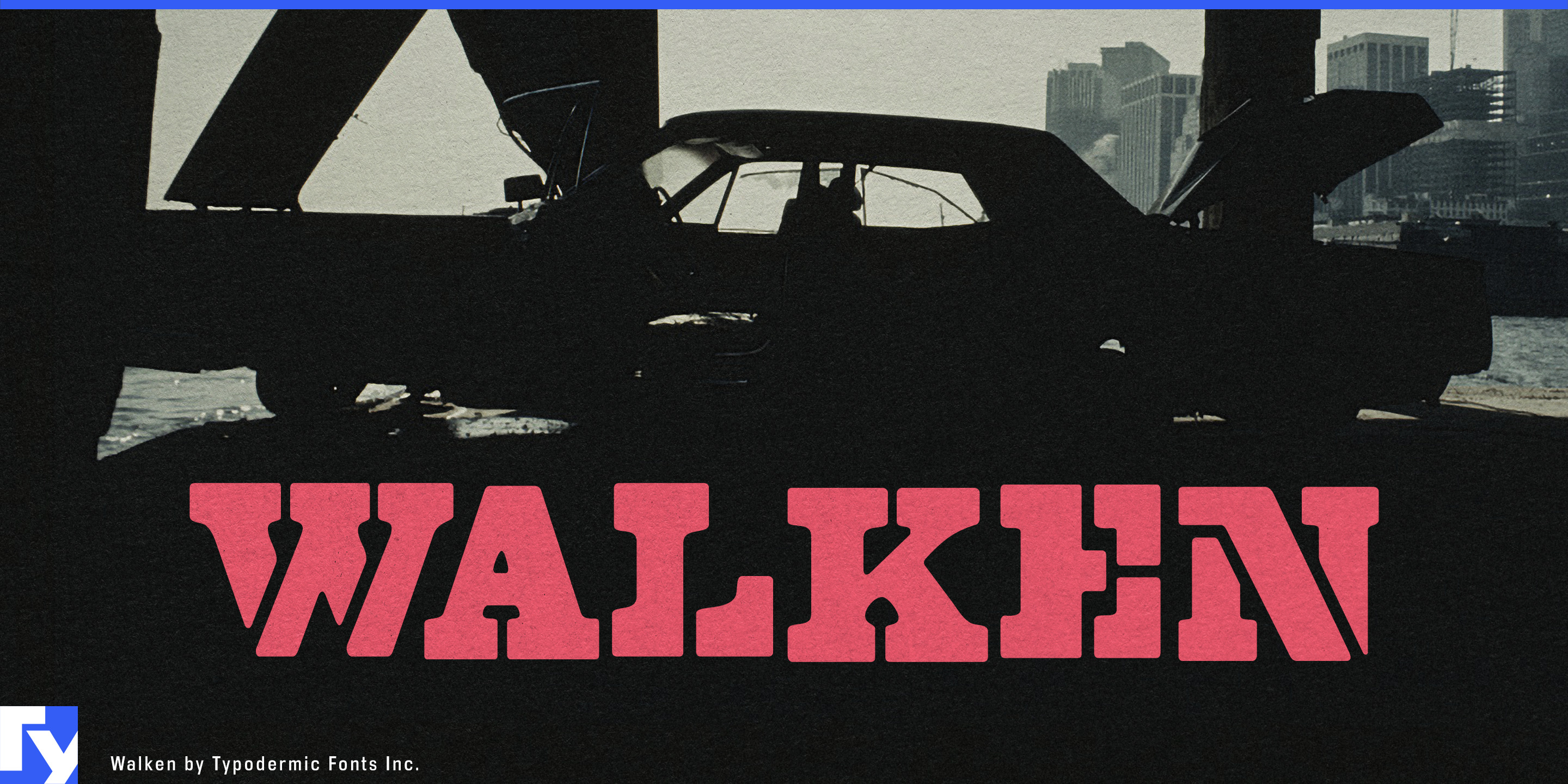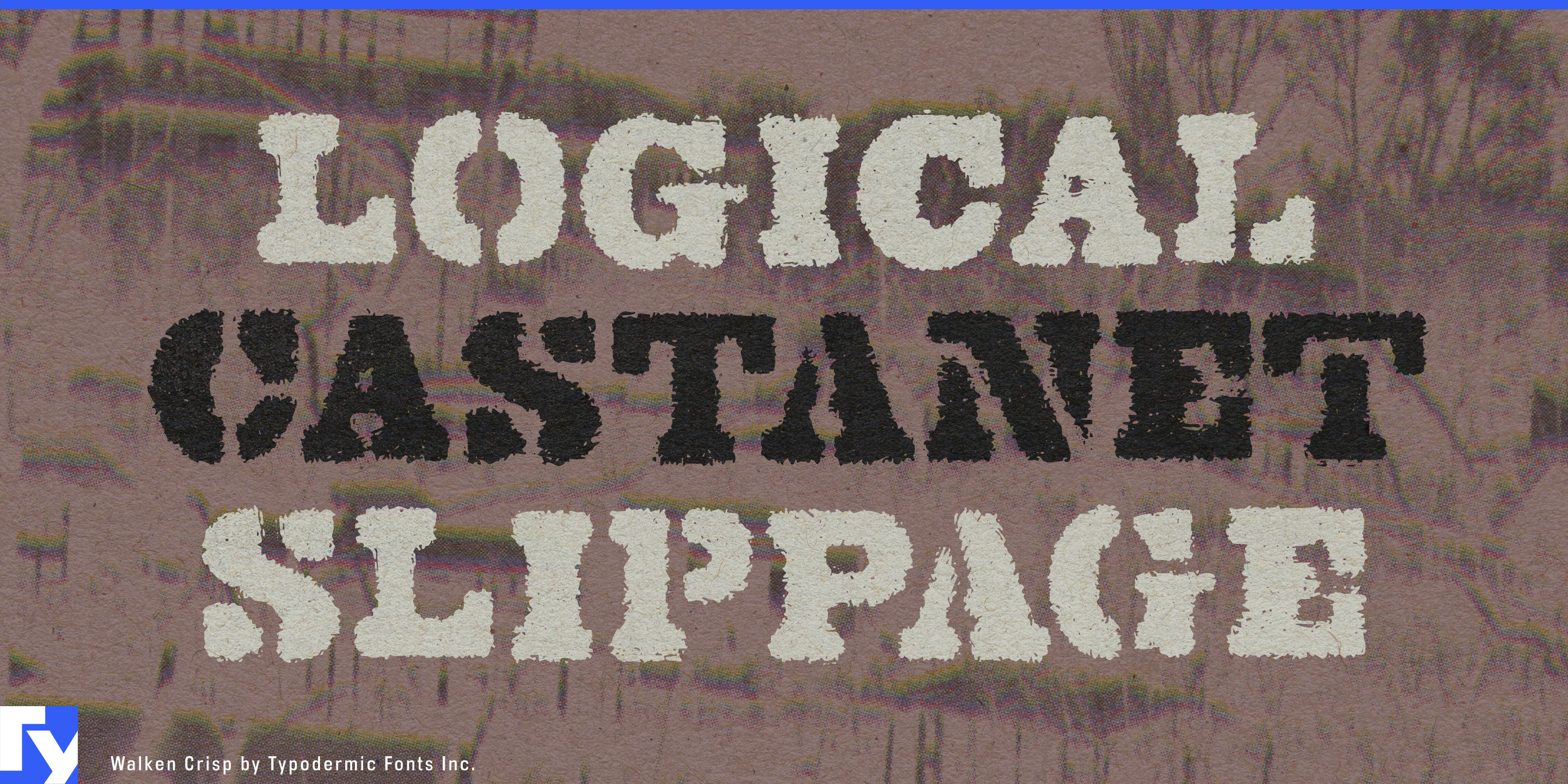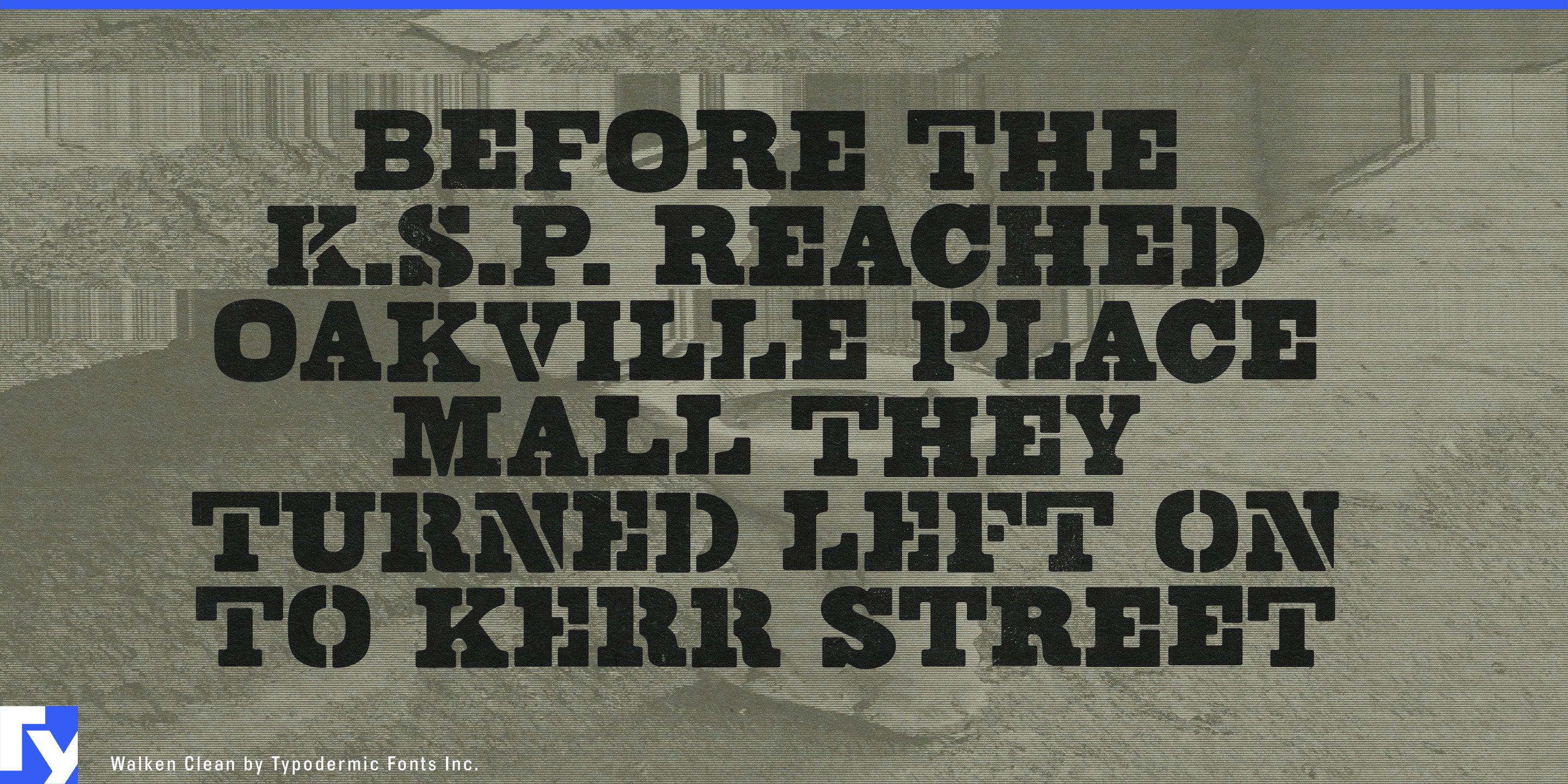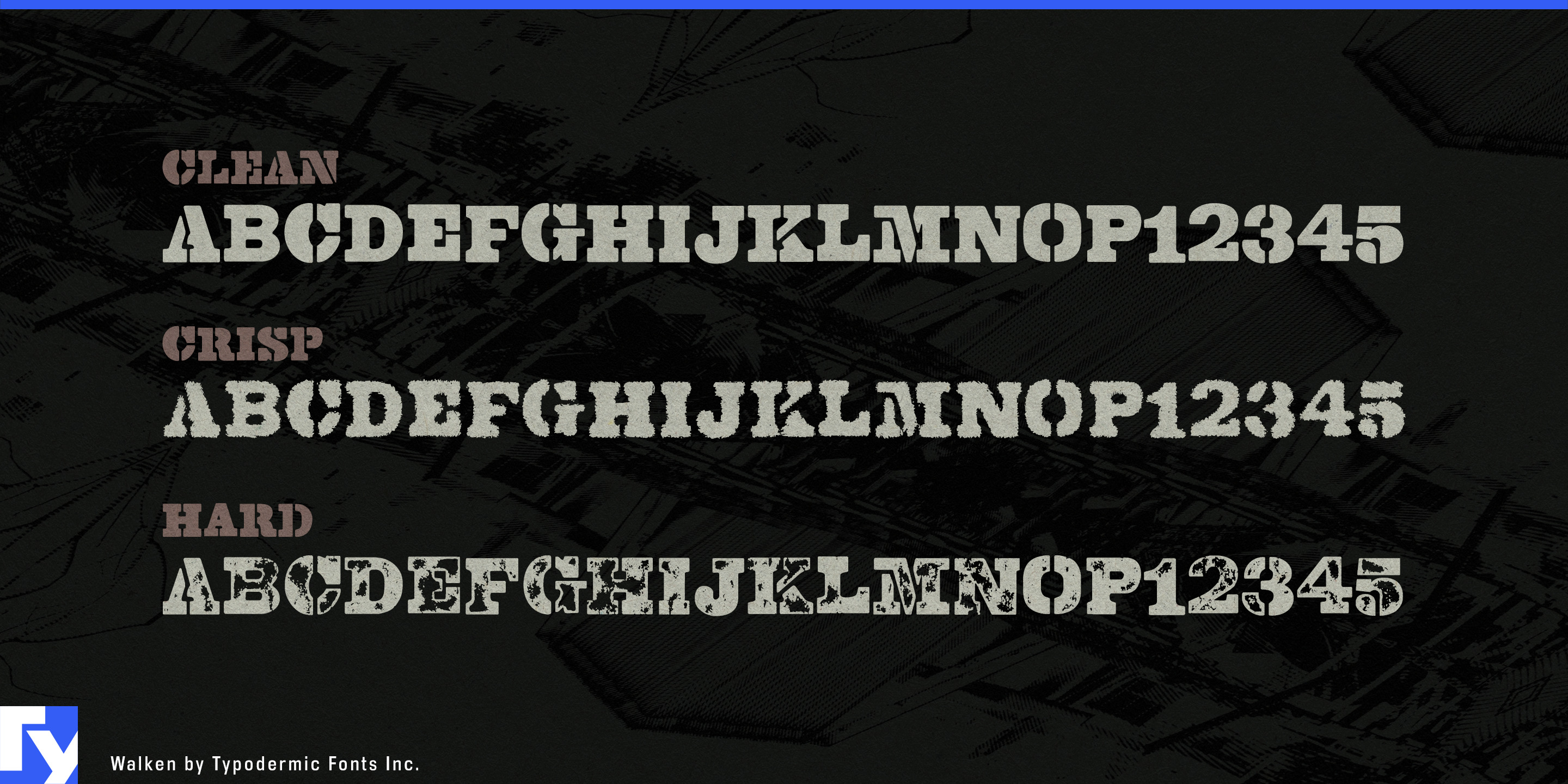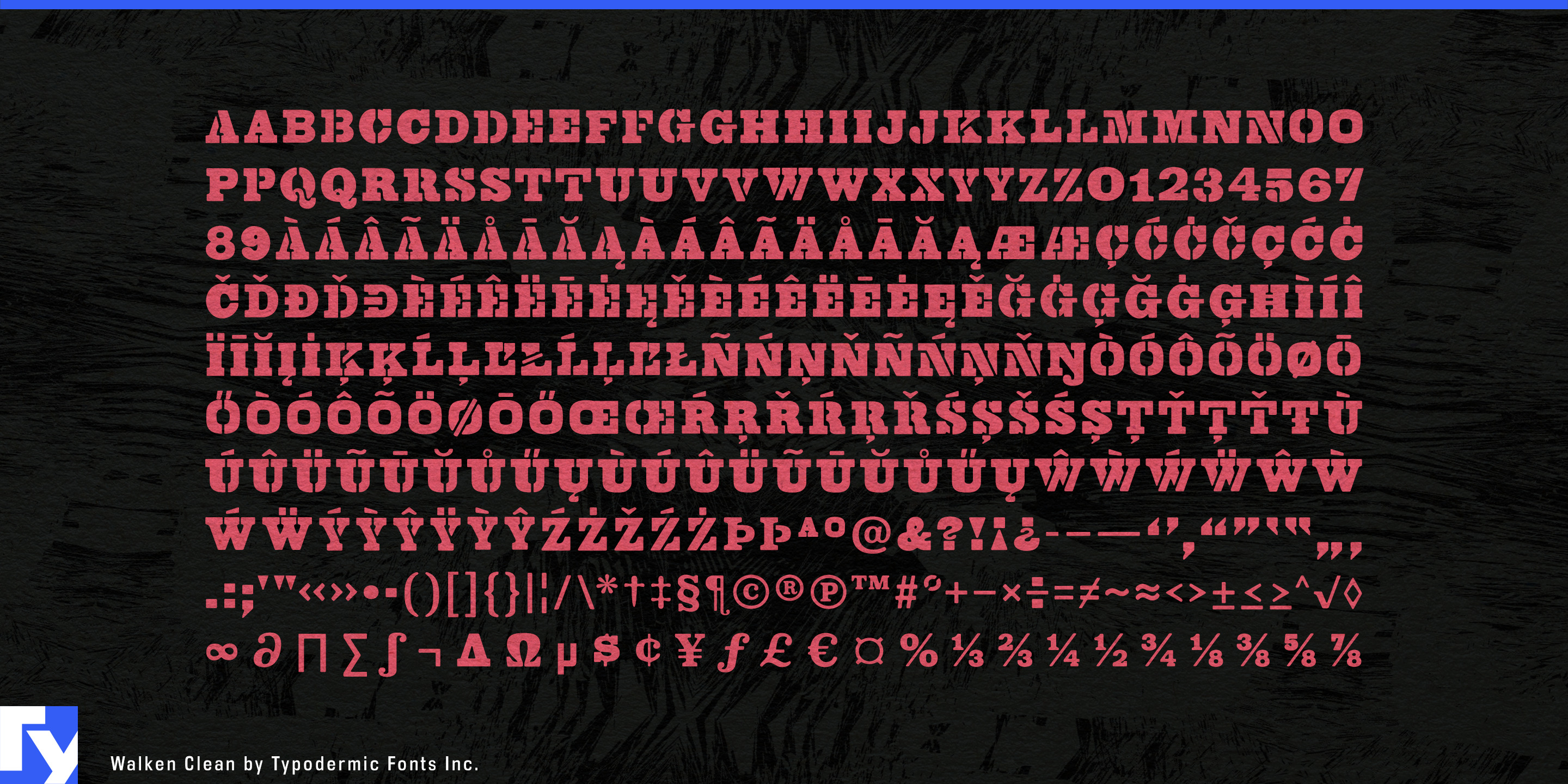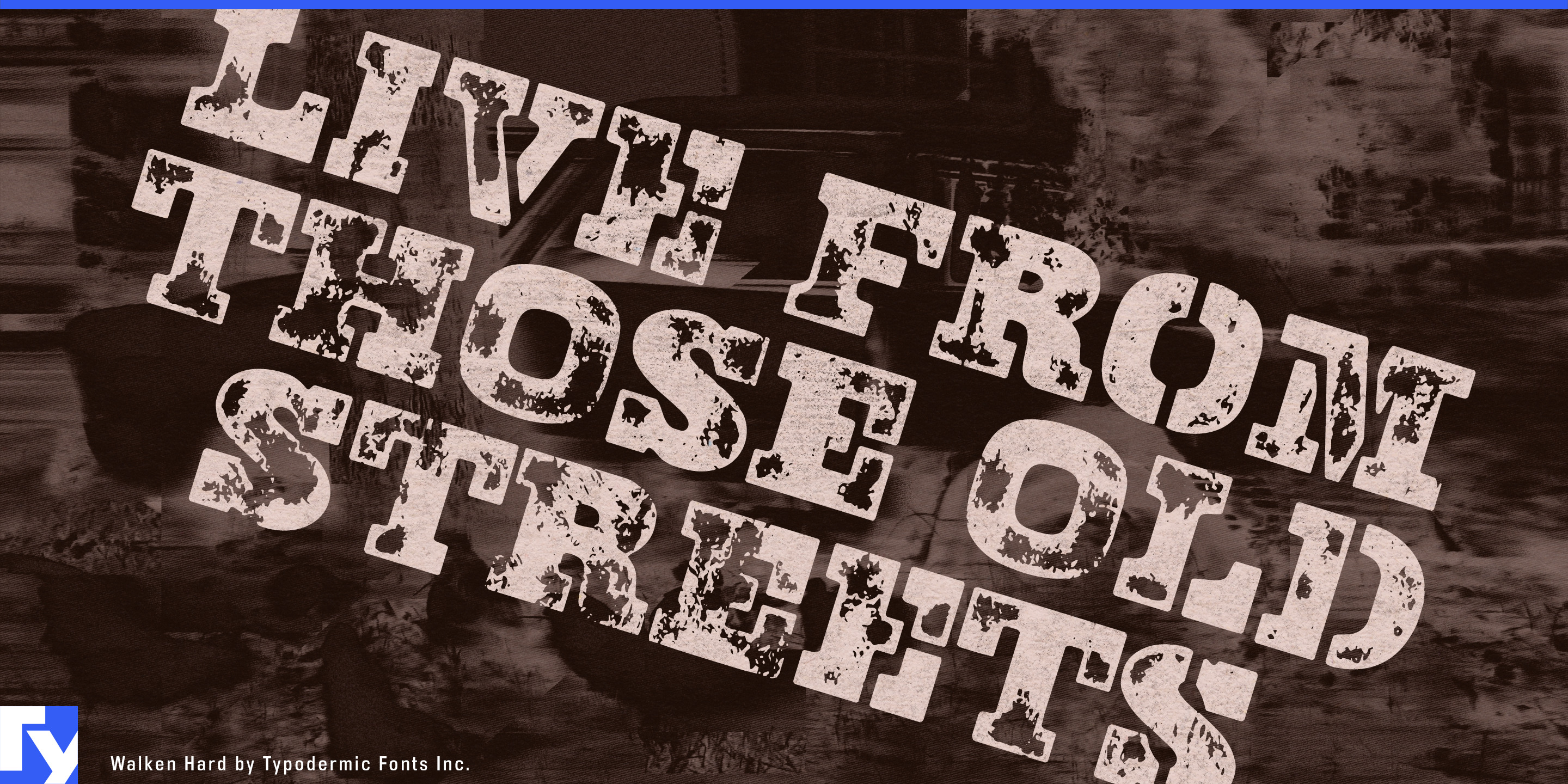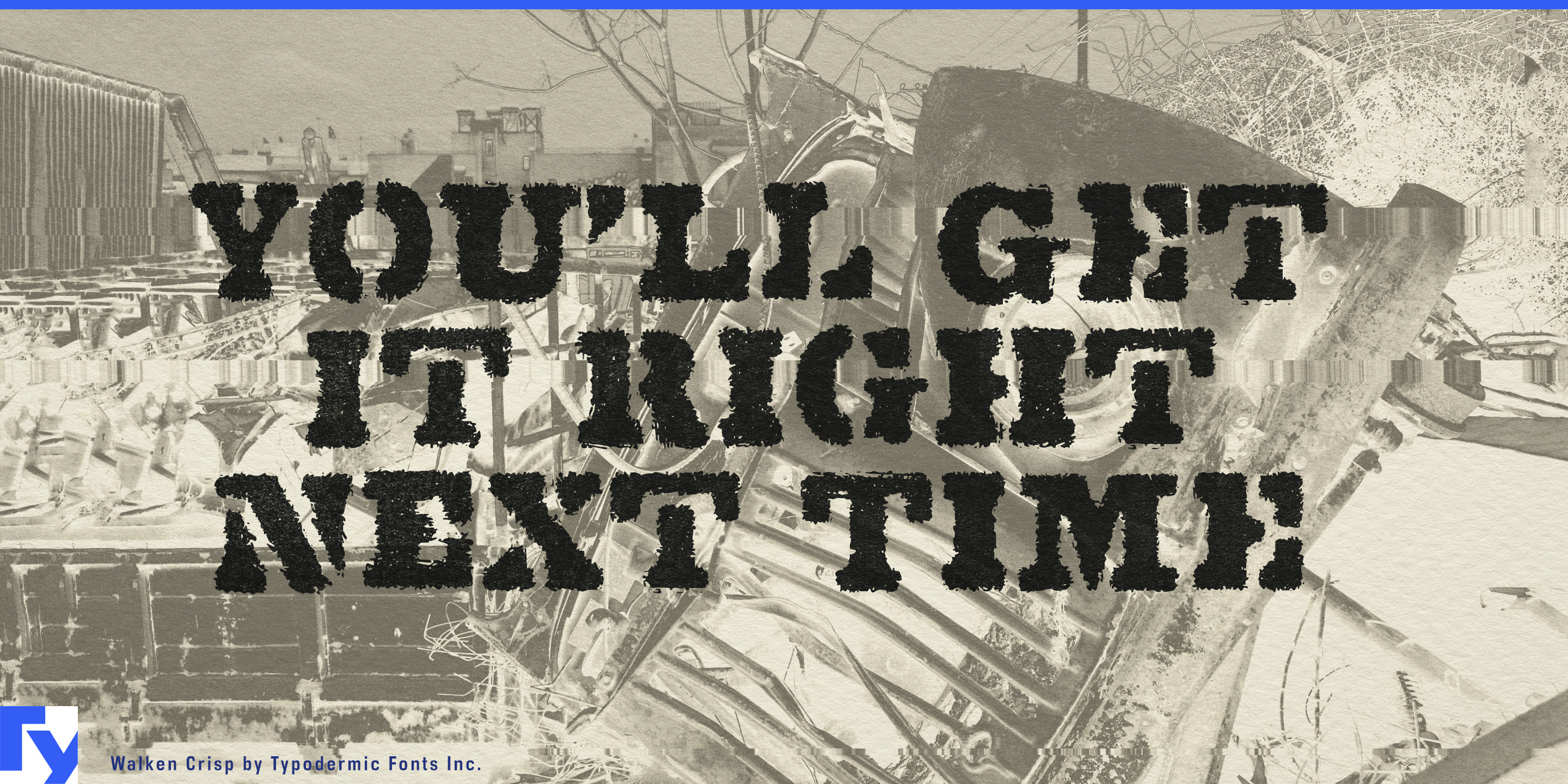
Walken
Walken is a heavy slab serif built around an intentionally inconsistent stencil system. Some letters are cut apart while others remain solid, and common letter combinations can shift the pattern again, keeping words from settling into the repetitive rhythm of a conventional stencil. Clean, Crisp, and Hard add progressively more surface wear, ranging from sharp and graphic to heavily battered.
That irregular construction gives Walken a strong role in industries built around physical processing. Demolition contractors, scrap-metal processors, concrete recyclers, aggregate recovery operations, industrial shredders, and heavy-equipment suppliers can use it for crusher and shredder model names, excavator attachments, equipment decals, fleet graphics, catalogues, yard signage, and trade-show displays.
The same visual language fits the expanding circular-industrial economy. Battery recycling, EV dismantling, e-waste recovery, construction-material reclamation, metals processing, and industrial remanufacturing all revolve around machines that disassemble, sort, crush, recover, and rebuild. Walken gives those companies a physical, process-driven identity without defaulting to military stencil lettering.
Construction and jobsite equipment offer another strong fit. Demolition attachments, concrete tools, compact machinery, portable power systems, contractor storage, rugged equipment cases, and heavy-duty hardware often rely on large product-series names and model identifiers across housings, decals, packaging, dealer displays, and sales material.
Off-road and vehicle equipment can use the same toughness for recovery systems, winches, suspension components, skid plates, commercial 4×4 conversions, truck accessories, and UTV hardware. Clean can establish the main brand or product architecture, while Crisp and Hard add increasing abrasion for campaign graphics and secondary applications.
Walken works best where typography needs to suggest machinery, impact, abrasion, and physical work without borrowing the usual military stencil vocabulary. Its shifting pattern of broken and intact forms remains distinctive even before any surface damage is added.
- Slab serif
- Stencil, Alternates